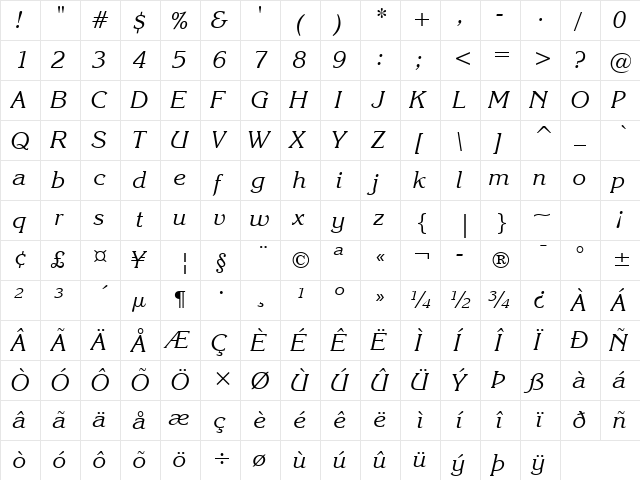
Korinna BT Kursiv Regular Font Preview
Korinna BT Kursiv Regular
Design Context for Korinna BT Typeface
Korinna BT is a composed and adaptable typeface that performs quietly and consistently across a wide range of design contexts. Its italic angle brings a sense of urgency and motion to the letterforms.
Pro Tip: Try Korinna BT for annotation and caption copy alongside an upright companion — the contrast in angle creates a dynamic but ordered typographic system.